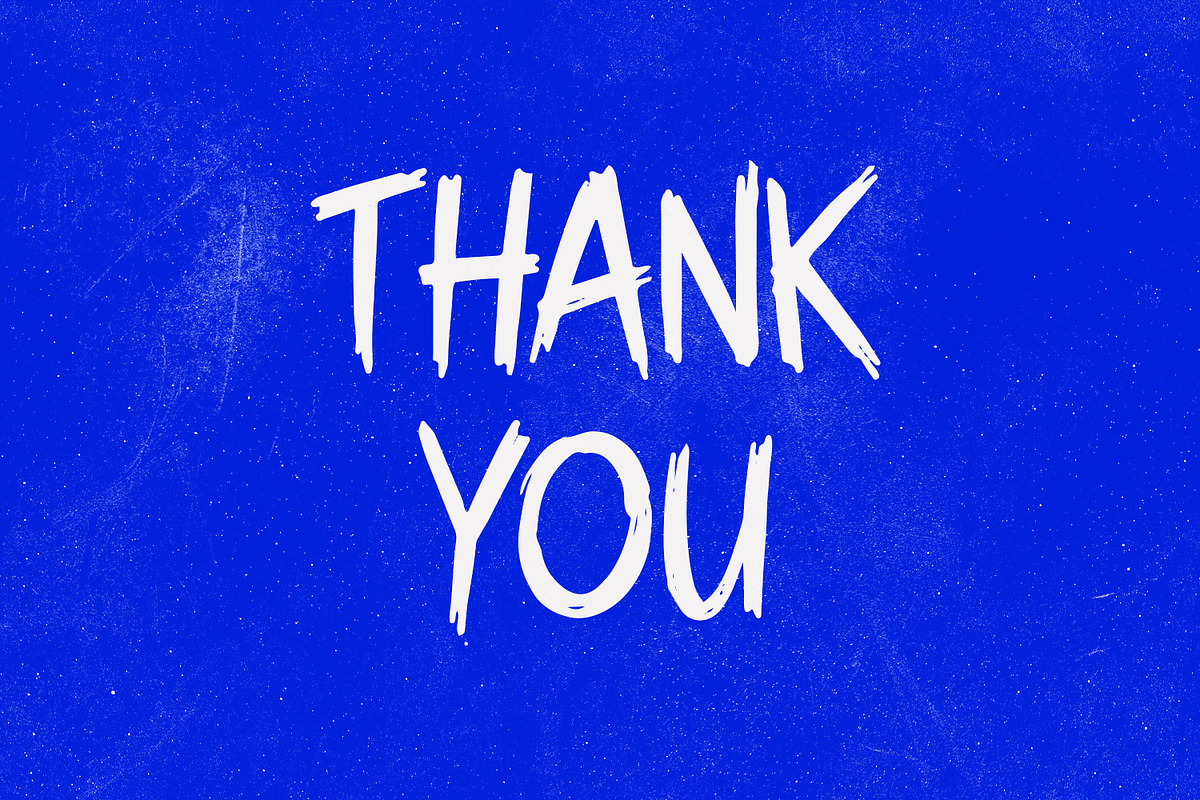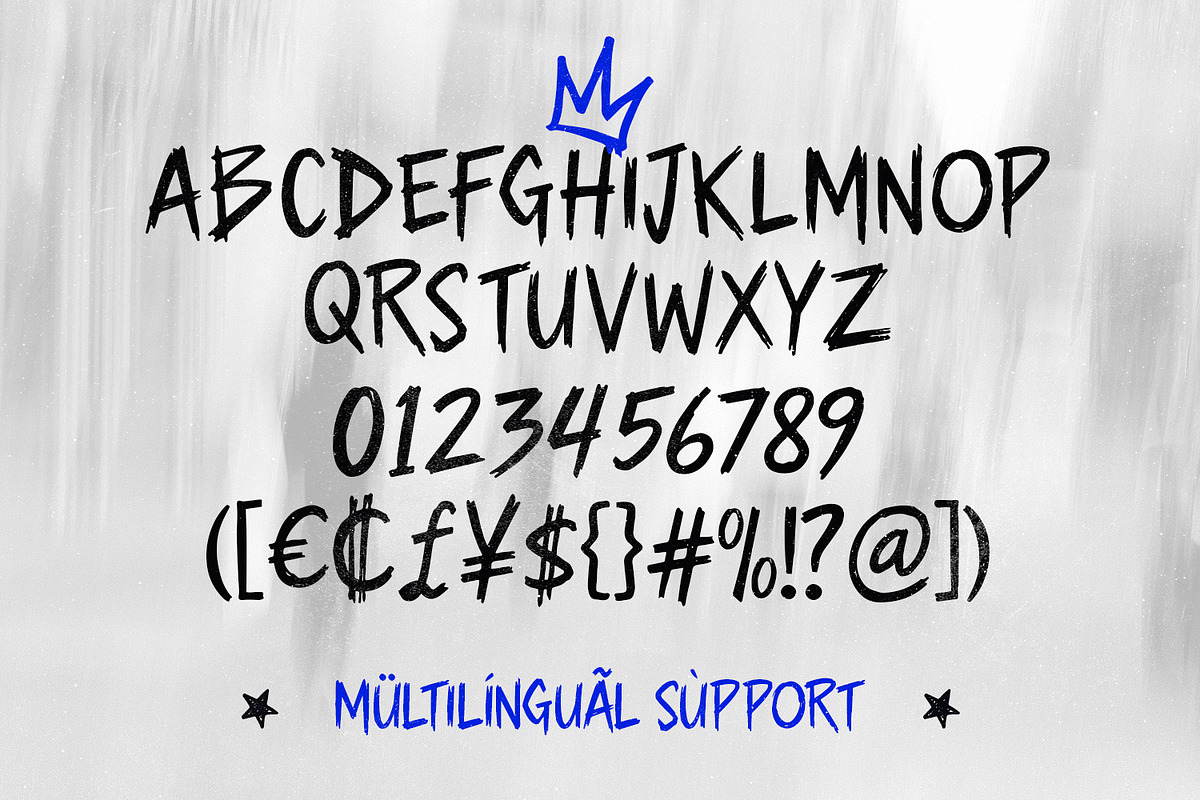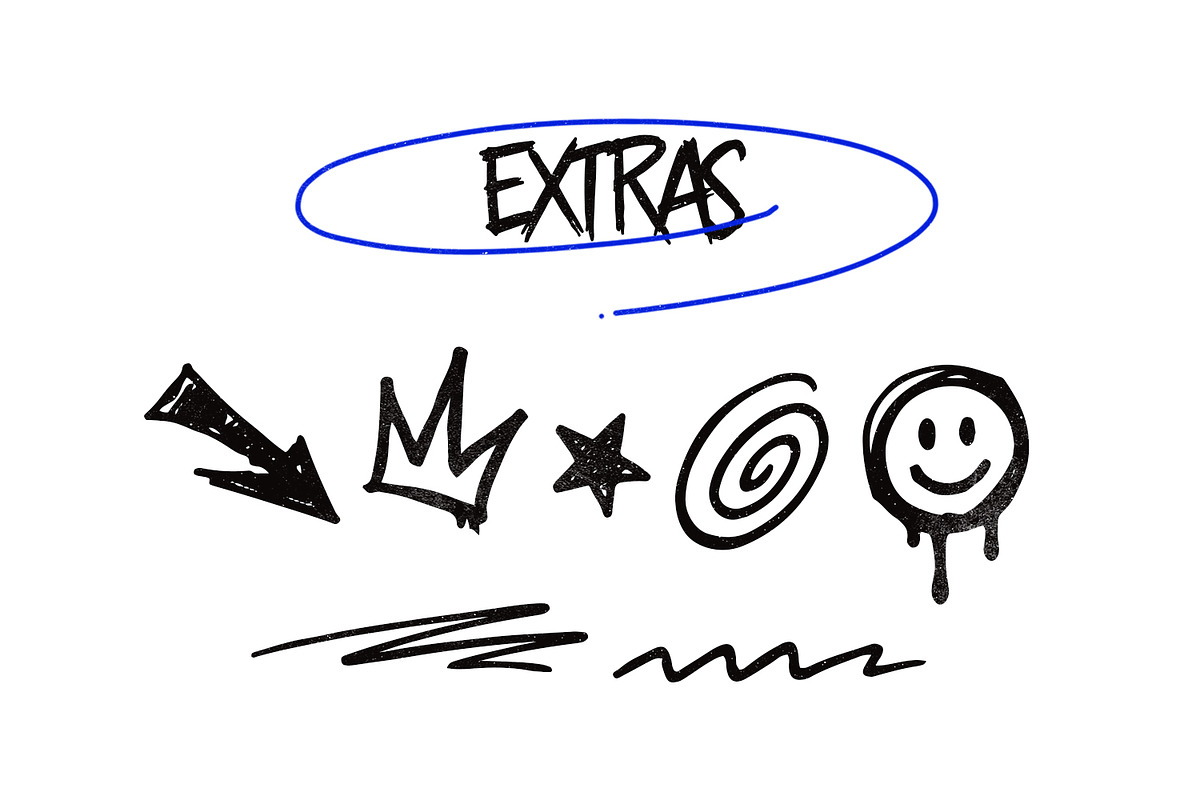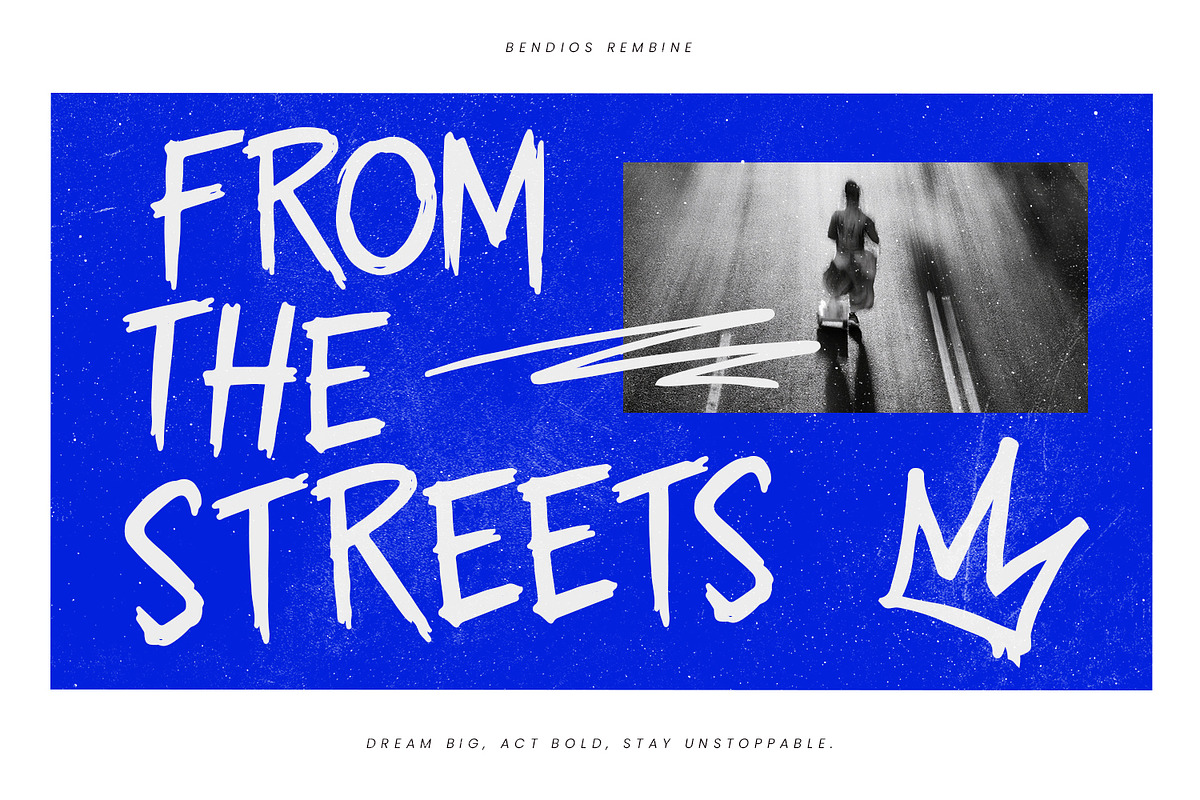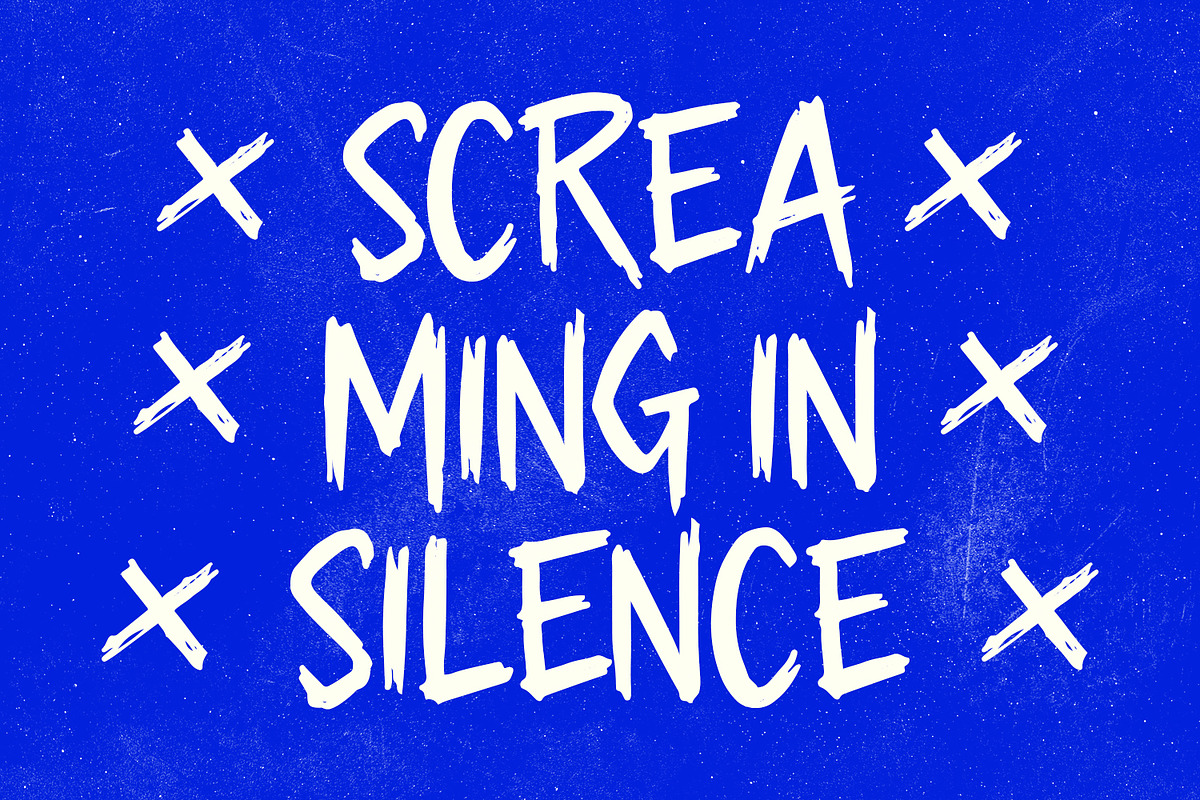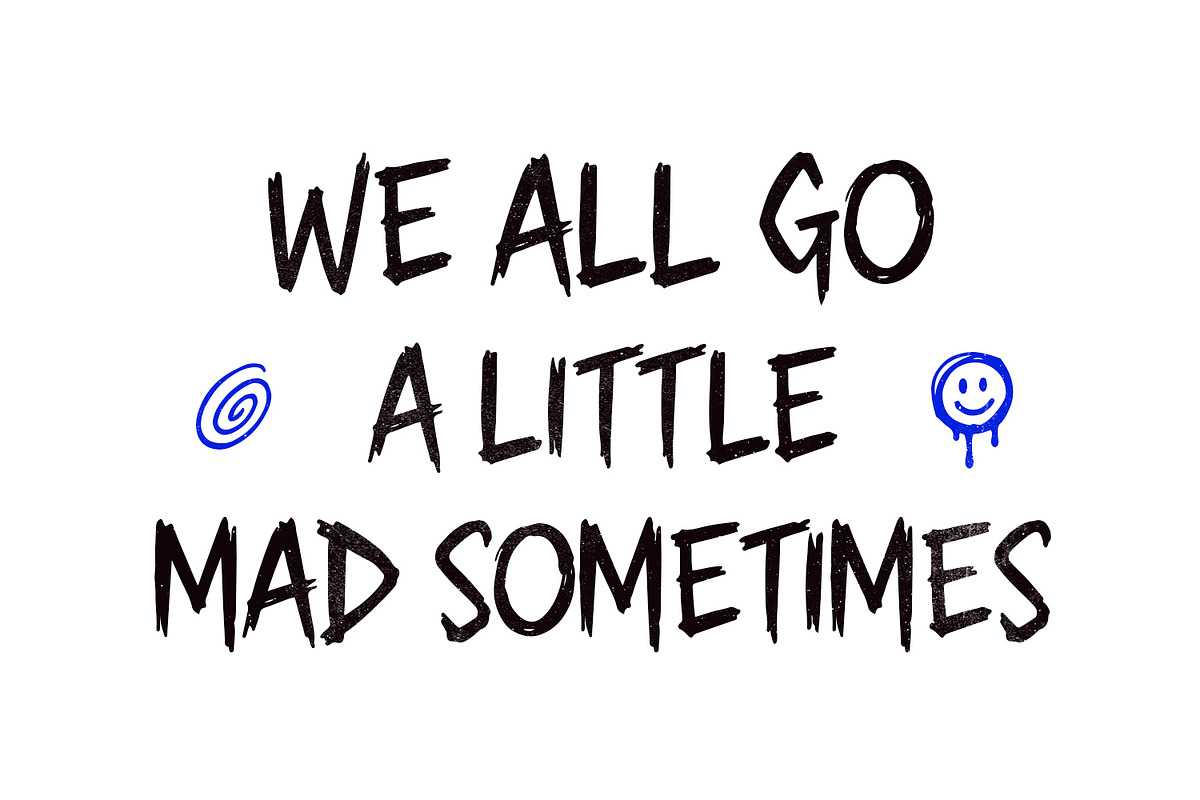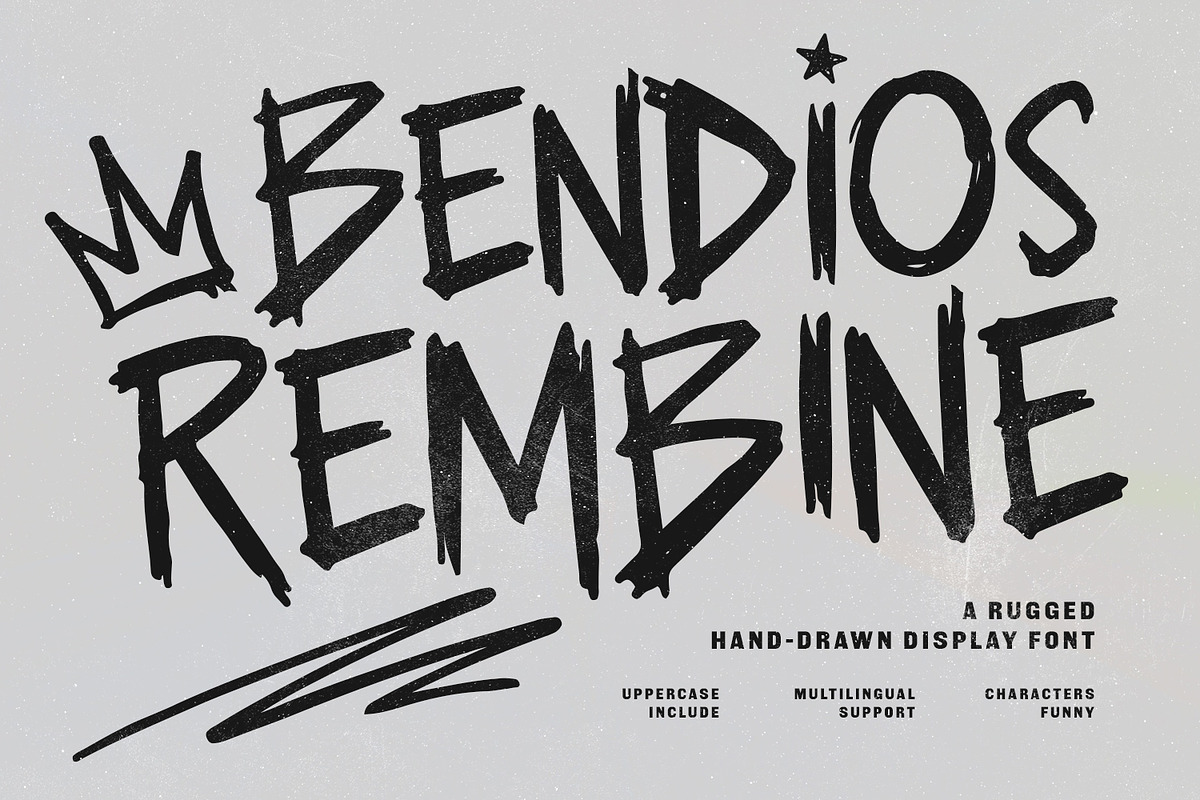
Bendios Rembine - Rugged Hand-Drawn
Bendios Rembine is a bold and expressive display font characterized by its authentic, hand-drawn strokes and rugged texture. This typeface captures a raw, energetic aesthetic, making it an excellent choice for impactful headlines, social media content, and creative branding. Its aggressive lines and unique character shapes provide a distinct visual edge for any design requiring a powerful, handcrafted feel and high-contrast presence.
- Ligatures and alternate for a natural handwriting flow